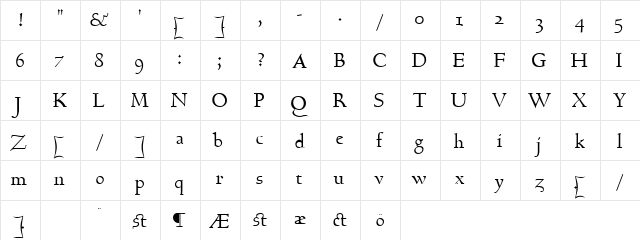
GoudyHundred Normal
Design Context for GoudyHundred Typeface
GoudyHundred offers clean, dependable letterforms without strong stylistic allegiance, making it a practical choice for designers who need flexibility.